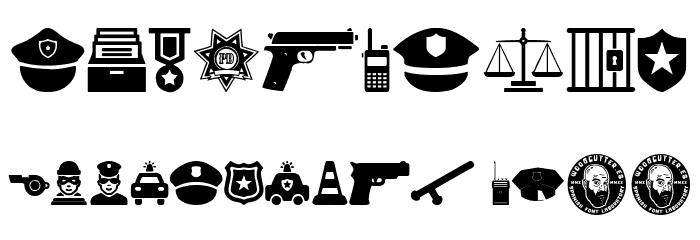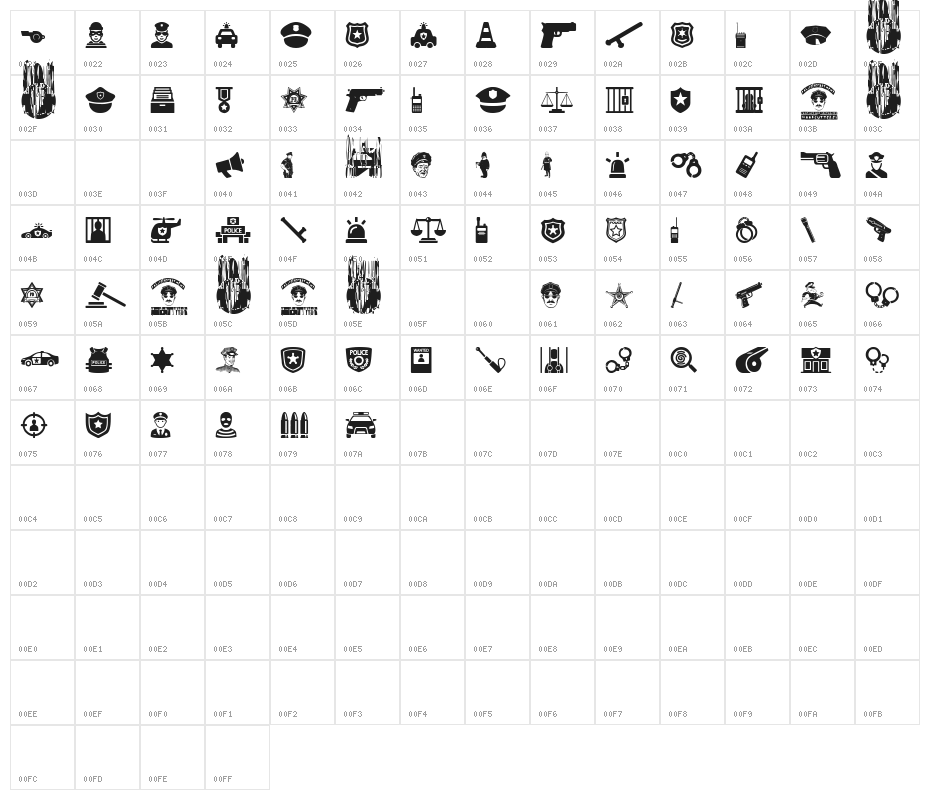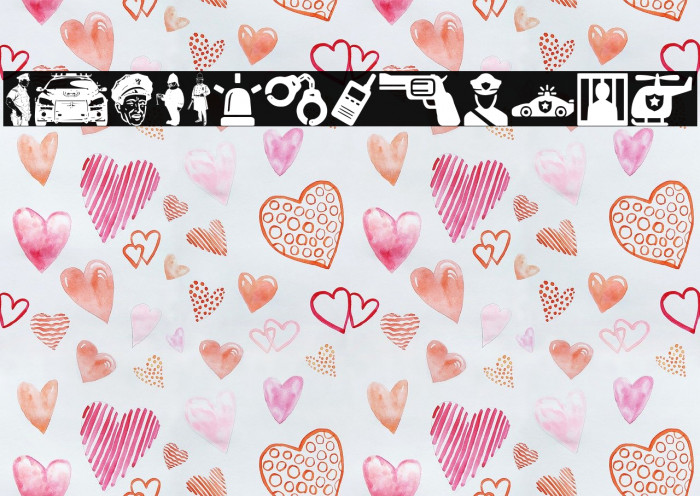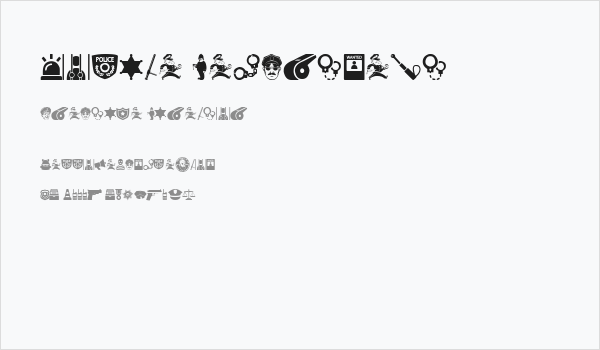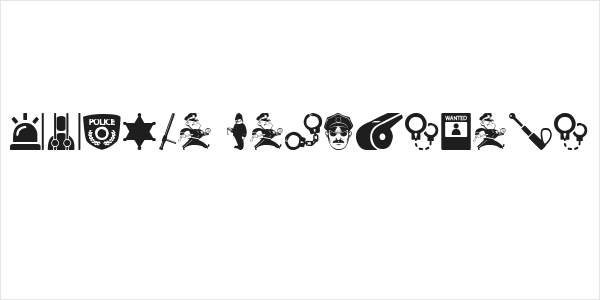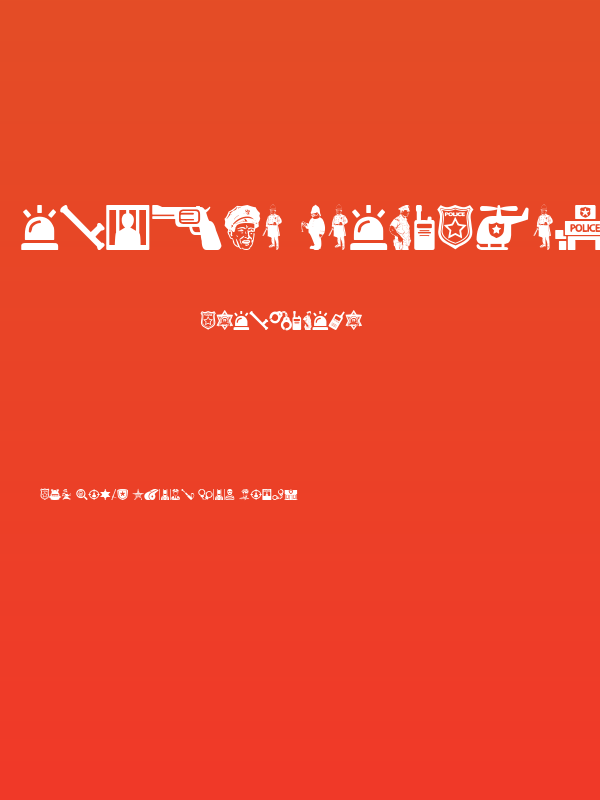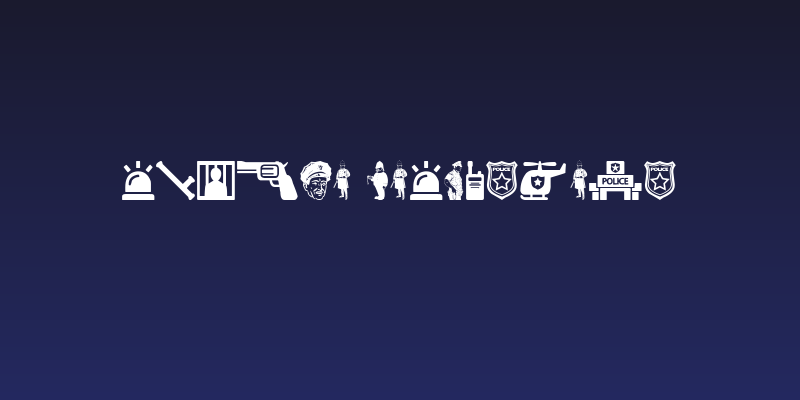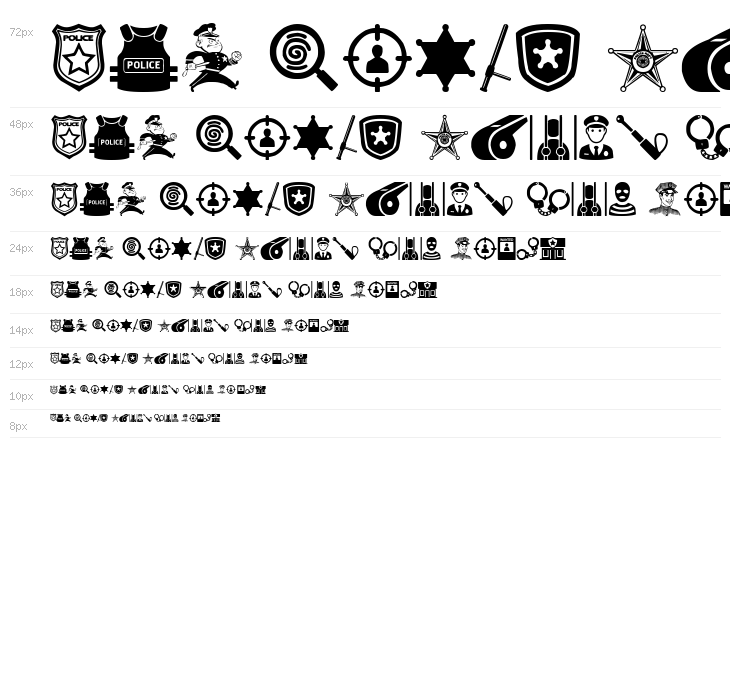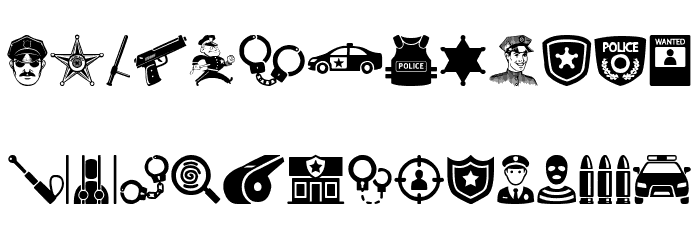
Police Department Font
Police Department Description
A pictogram-style icon set featuring police and law enforcement themes, including officers, badges, vehicles, equipment, and legal symbols. The icons are bold, highly simplified, and use solid black fills for strong visual impact.